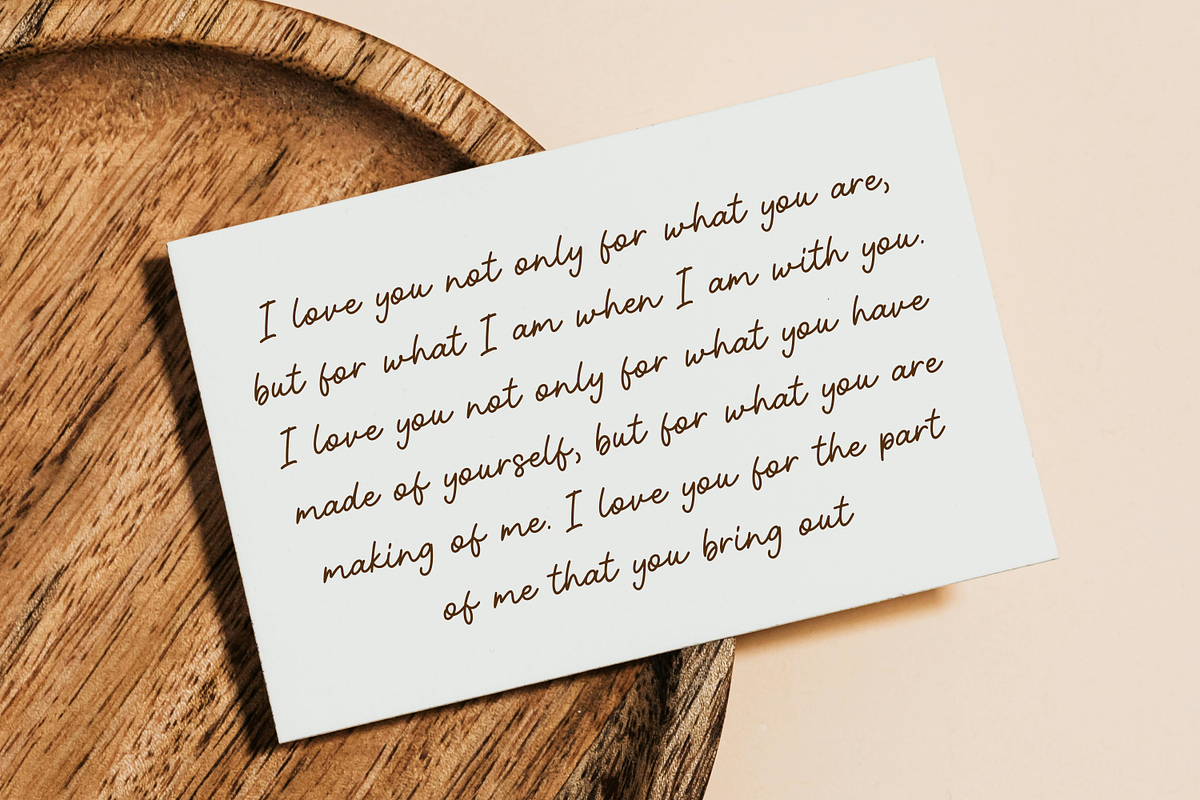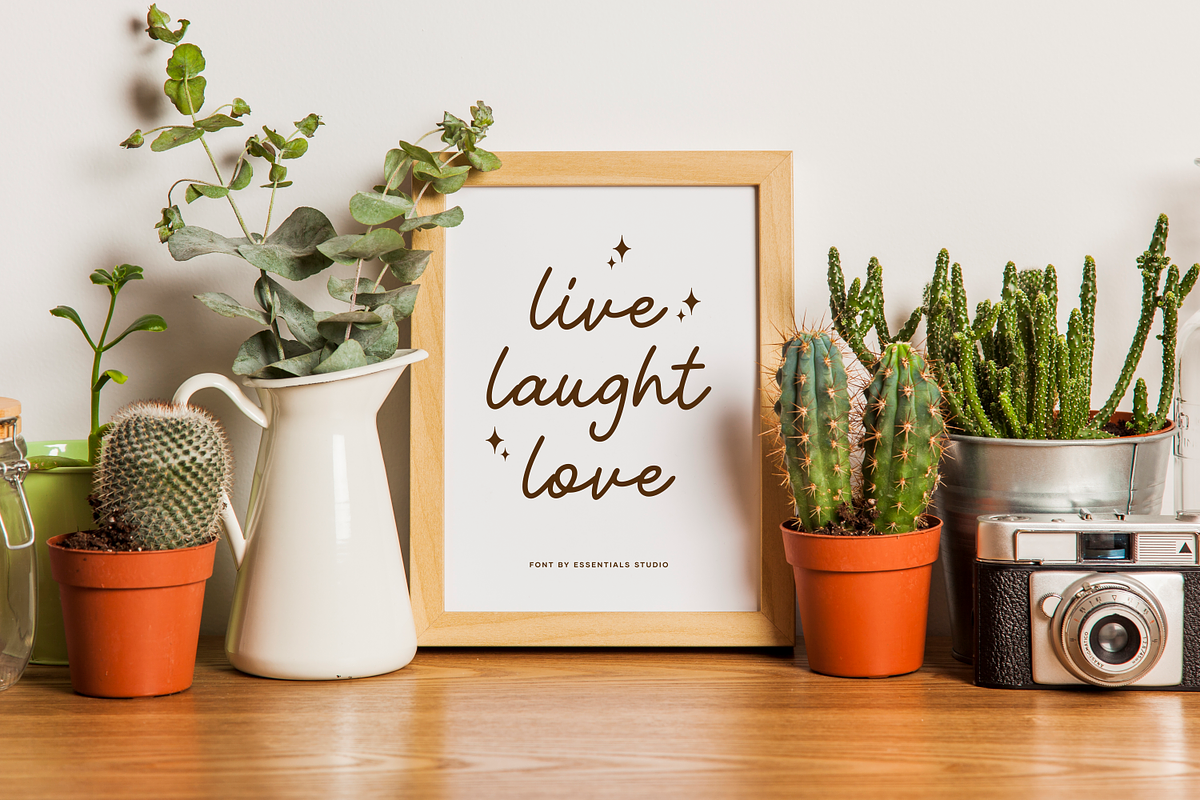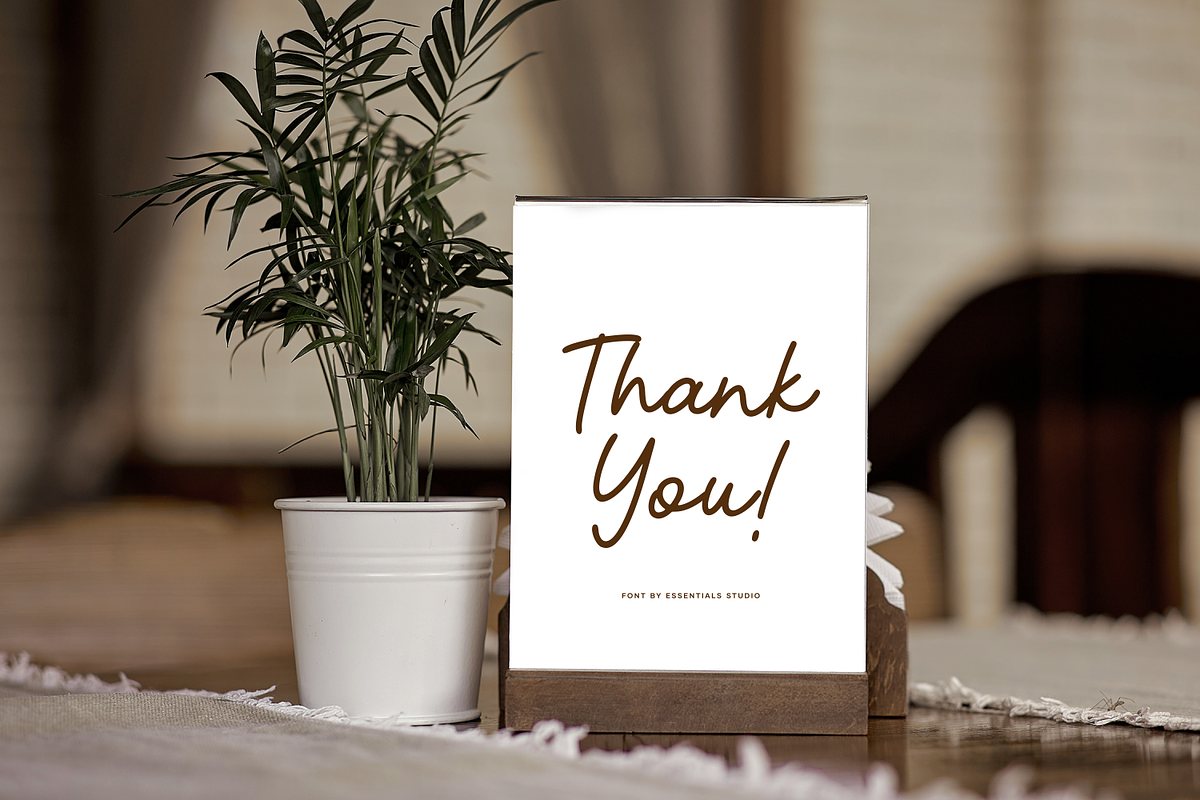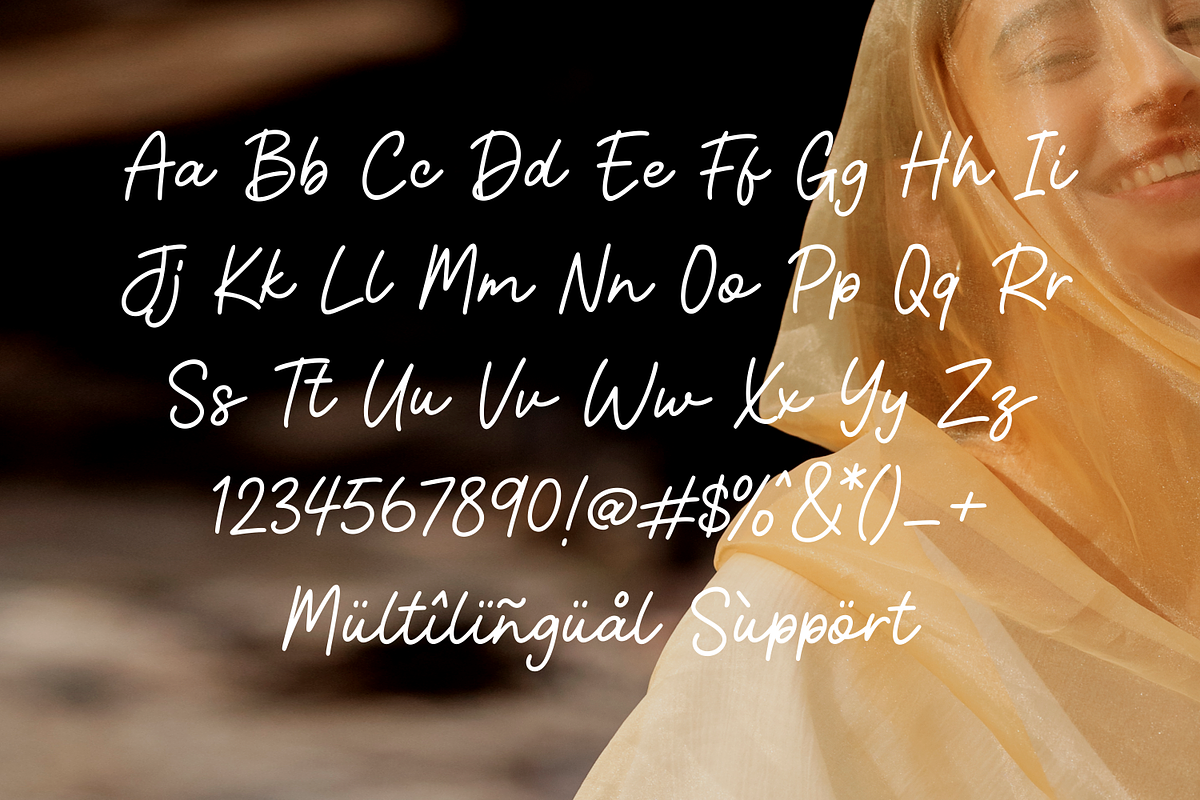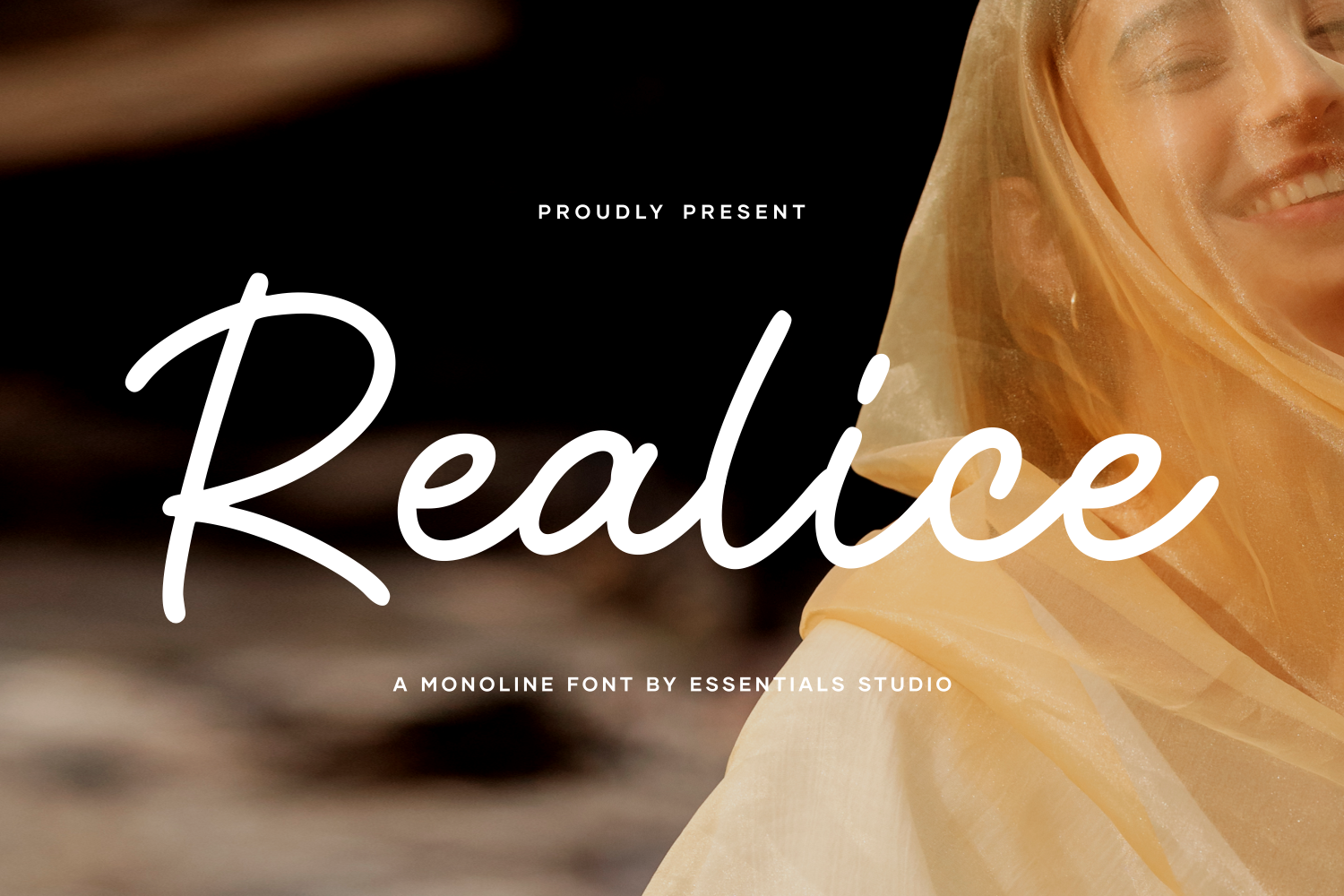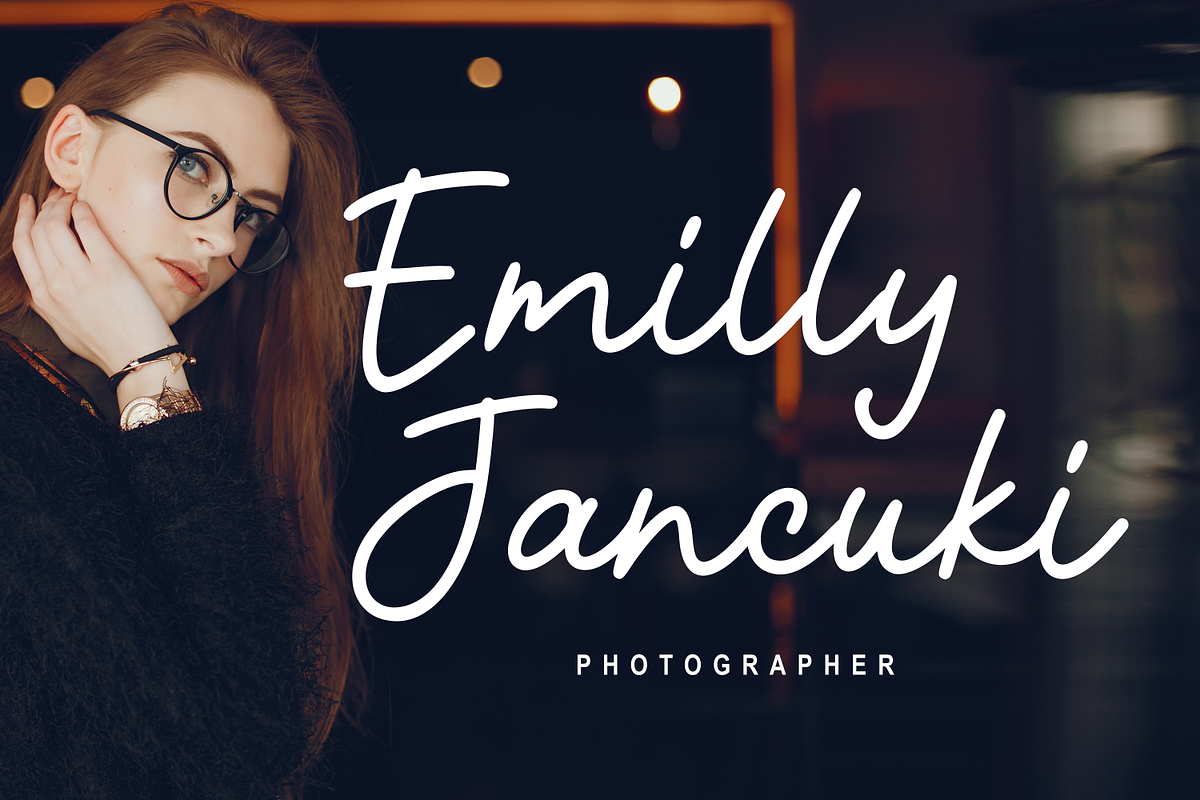
Realice - Monoline Font
Introducing Realice - a sleek, contemporary monoline font, brought to life with a balance of creativity and precision. Showcasing a modern simplicity, Realice puts the spotlight on product packaging and branding projects. Its stylish design comes to life on magazine pages, social media platforms, and even at wedding events. Use Realice to add visual drama to any background with the expressive power of words. An embodiment of modern typography, Realice is your go-to font for a distinctive and captivating design experience.